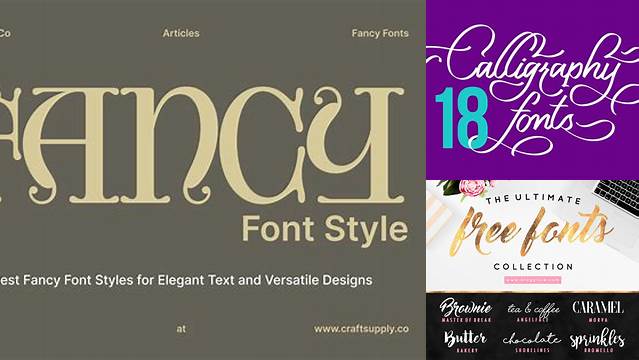
Free Fancy Text Fonts: Your Ultimate Guide
Hey guys! Ever wanted to add a little pizzazz to your projects, whether it's a social media post, a presentation, or even a personal invite? Well, you've come to the right place! We're diving deep into the world of free fancy text fonts, and trust me, there's a whole universe of creativity waiting to be unlocked. Forget those boring, default fonts – let's explore some ways to make your text truly stand out.
1. Understanding the Appeal of Fancy Fonts
So, what's the big deal about fancy fonts anyway? Why not just stick to Times New Roman or Arial? Well, my friends, the power of a fancy font lies in its ability to evoke emotion and capture attention. Different fonts can convey different moods, from playful and whimsical to elegant and sophisticated. Using the right fancy font can make your message more memorable and impactful, and that's a huge win. When thinking about using free fancy text fonts, consider the overall tone and message you want to convey. A font that's perfect for a birthday invitation might not be the best choice for a formal business presentation, and vice-versa. The key is to choose fonts that align with your goals and target audience.
2. Where to Find Free Fancy Text Fonts
Alright, let's get to the good stuff! Where can you actually find these awesome free fancy text fonts? The internet, thankfully, is overflowing with resources. Websites like Google Fonts, DaFont, and Font Squirrel are treasure troves of free fonts, and they're super easy to navigate. Google Fonts is particularly user-friendly, as it allows you to easily embed fonts directly into your website. DaFont is a great option for finding unique and quirky fonts, while Font Squirrel focuses on high-quality fonts that are free for commercial use. Remember to always check the license of any font you download, just to make sure you're using it in accordance with the terms. Most free fancy text fonts come with a personal use license, but if you're planning on using them for commercial projects, you'll want to find fonts with a commercial license.
3. Top Websites for Downloading Fancy Fonts
Let's break down some of the top websites in more detail. Google Fonts, as mentioned, is a fantastic resource for web fonts. Its vast library includes everything from elegant serifs to playful scripts, all of which are free fancy text fonts and open source. DaFont is another popular choice, known for its wide selection of user-submitted fonts. You'll find everything from hand-drawn fonts to futuristic designs here. Font Squirrel is a great option if you're looking for fonts that are explicitly free for commercial use. They also offer a handy Font Identifier tool that can help you identify fonts you see in images or on websites. Another website worth checking out is 1001 Free Fonts, which has a massive collection of fonts in various styles and categories. When browsing these sites, be sure to use the filters and search functions to narrow down your options and find the perfect free fancy text fonts for your project.
4. Google Fonts: A Powerhouse of Free Fonts
Google Fonts deserves a special mention because it's such a powerhouse in the free fancy text fonts world. What makes Google Fonts so great? First off, the fonts are high-quality and professionally designed. Secondly, they're incredibly easy to use – you can download them or embed them directly into your website with a simple code snippet. Google Fonts also offers a variety of filters and sorting options, making it easy to find fonts that match your specific needs. You can filter by categories like serif, sans-serif, handwriting, and monospace, or sort by popularity, trending, or alphabetical order. Plus, Google Fonts is constantly updated with new fonts, so you'll always have fresh options to choose from. If you're just starting out in the world of fancy fonts, Google Fonts is an excellent place to begin your journey.
5. DaFont: A Treasure Trove of Unique Styles
If you're after something a little more unique and quirky, DaFont is your go-to destination for free fancy text fonts. This website is a treasure trove of user-submitted fonts, which means you'll find a huge variety of styles that you won't see anywhere else. From whimsical calligraphy fonts to bold display fonts, DaFont has something for everyone. However, it's important to note that the quality of fonts on DaFont can vary, as they're submitted by individual designers. Be sure to preview the fonts carefully and check the license before downloading. Many fonts on DaFont are free for personal use but may require a license for commercial use. Despite this, the sheer variety and creativity on DaFont make it a must-visit for anyone looking for free fancy text fonts.
6. Font Squirrel: Free Fonts for Commercial Use
7. Understanding Font Licensing
Okay, let's talk about the not-so-fun but super important topic of font licensing. When you download free fancy text fonts, it's crucial to understand the terms of use. Most fonts come with a license that specifies how you can and can't use them. The most common types of licenses are personal use and commercial use. A personal use license means you can use the font for personal projects, like creating invitations or posters for your own enjoyment. A commercial use license, on the other hand, allows you to use the font in projects that generate revenue, such as logos, websites, and marketing materials. It's essential to read the font license carefully before using a font, as violating the license can have legal consequences. When in doubt, it's always best to err on the side of caution and contact the font designer for clarification.
8. Personal Use vs. Commercial Use Licenses
Let's dive a little deeper into the differences between personal use and commercial use licenses. Personal use licenses typically allow you to use free fancy text fonts for non-profit projects, such as school assignments, personal blogs, and invitations for friends and family. You can't use these fonts in any project that generates income. Commercial use licenses, however, grant you the right to use fonts in projects that are intended to make money. This includes things like logos, websites, advertisements, and products for sale. Commercial licenses may have varying restrictions, such as limitations on the number of users or the number of products the font can be used in. Some licenses may also require you to give credit to the font designer. Always read the fine print and make sure you understand the terms before using a font commercially.
9. Checking Font Usage Rights
So, how do you actually check the usage rights for a free fancy text font? The license information is usually included in a text file or a PDF document that comes with the font download. Look for files with names like "License.txt" or "Read Me.pdf". This document will outline the terms of use and specify whether the font is free for personal or commercial use. If you can't find a license file, try visiting the font designer's website or contacting them directly. Many font designers are happy to answer questions about their fonts and clarify the usage rights. Don't assume that a font is free for commercial use just because you found it on a free font website. Always verify the license to avoid potential legal issues down the road.